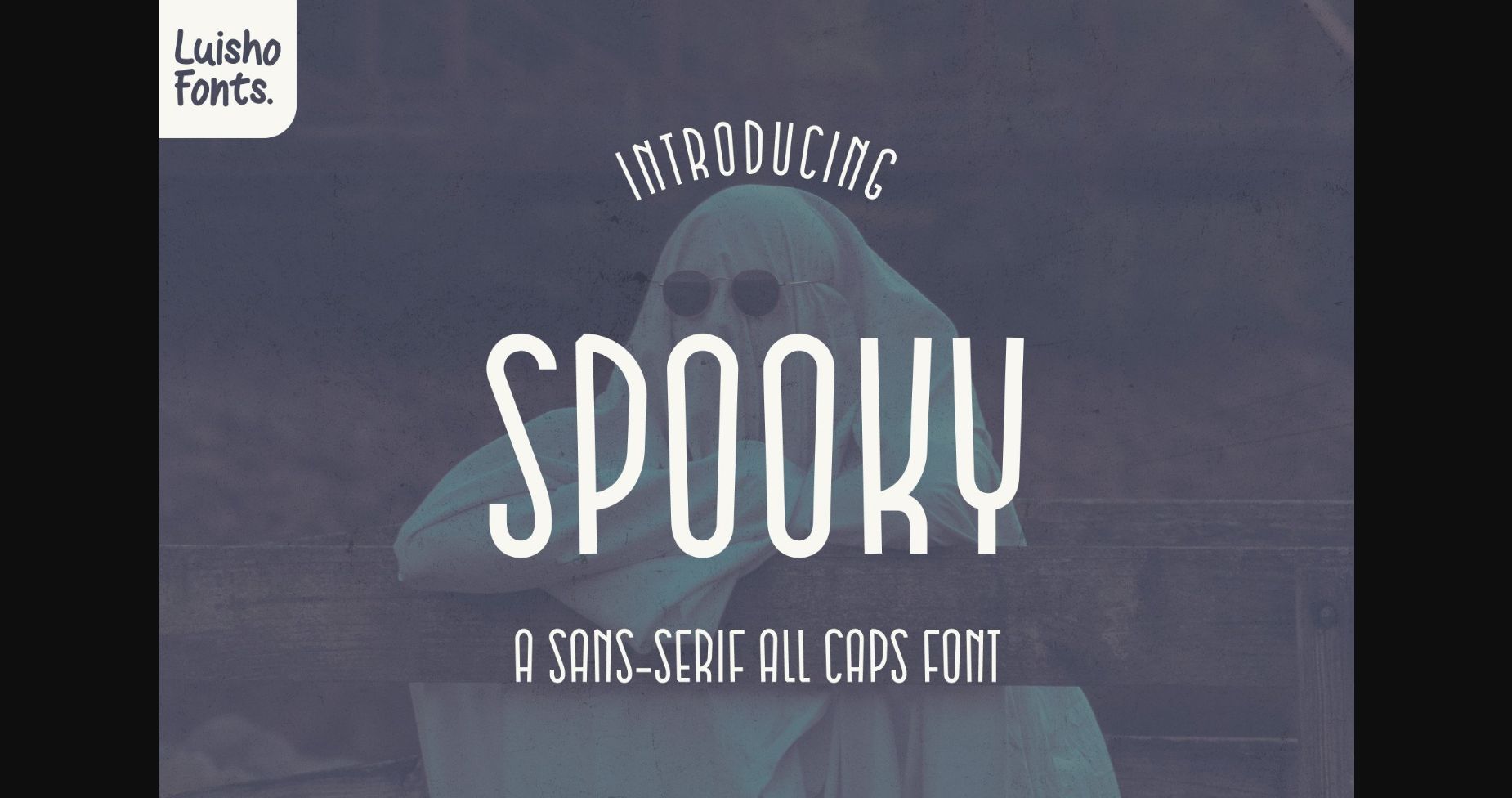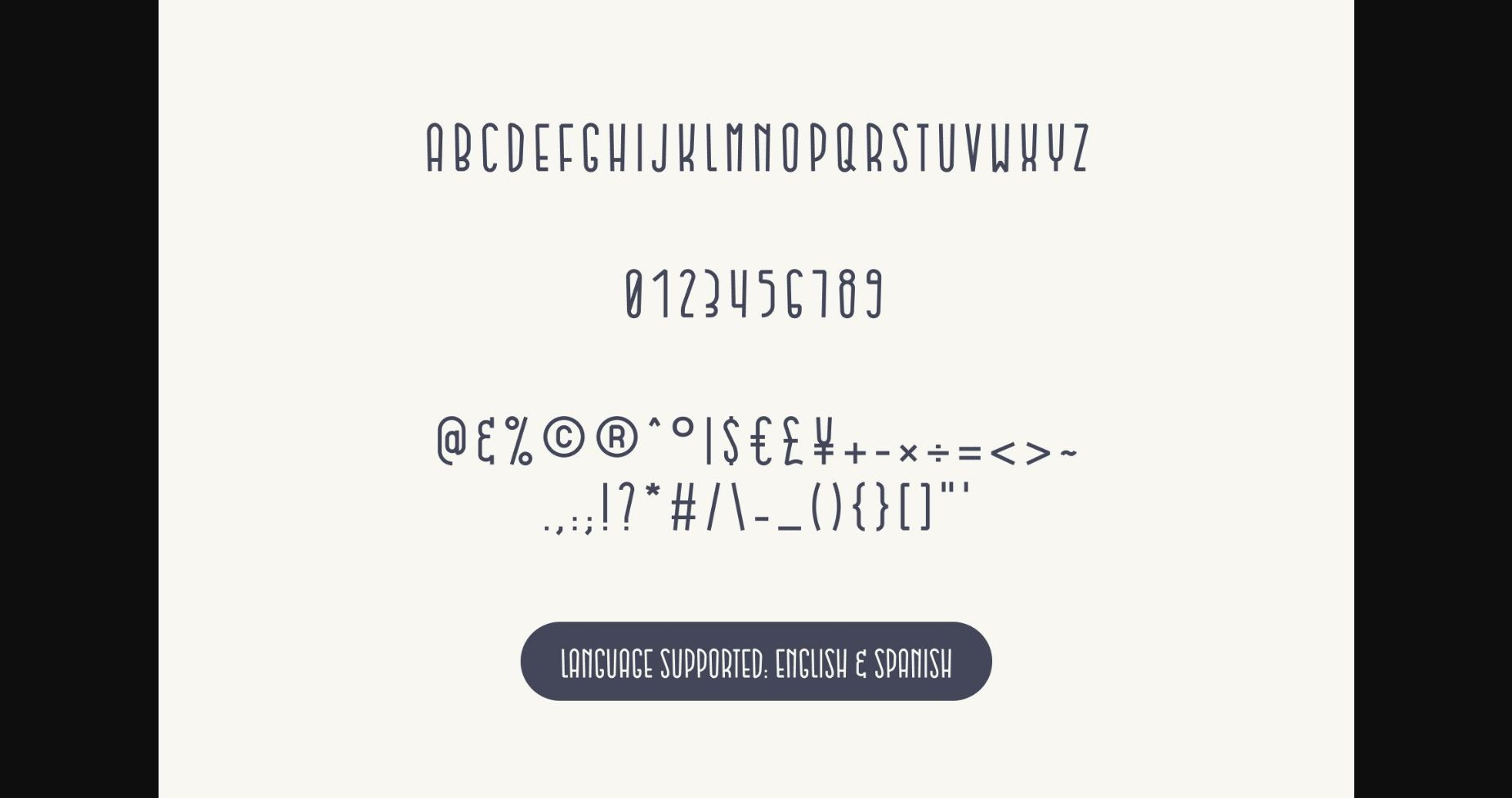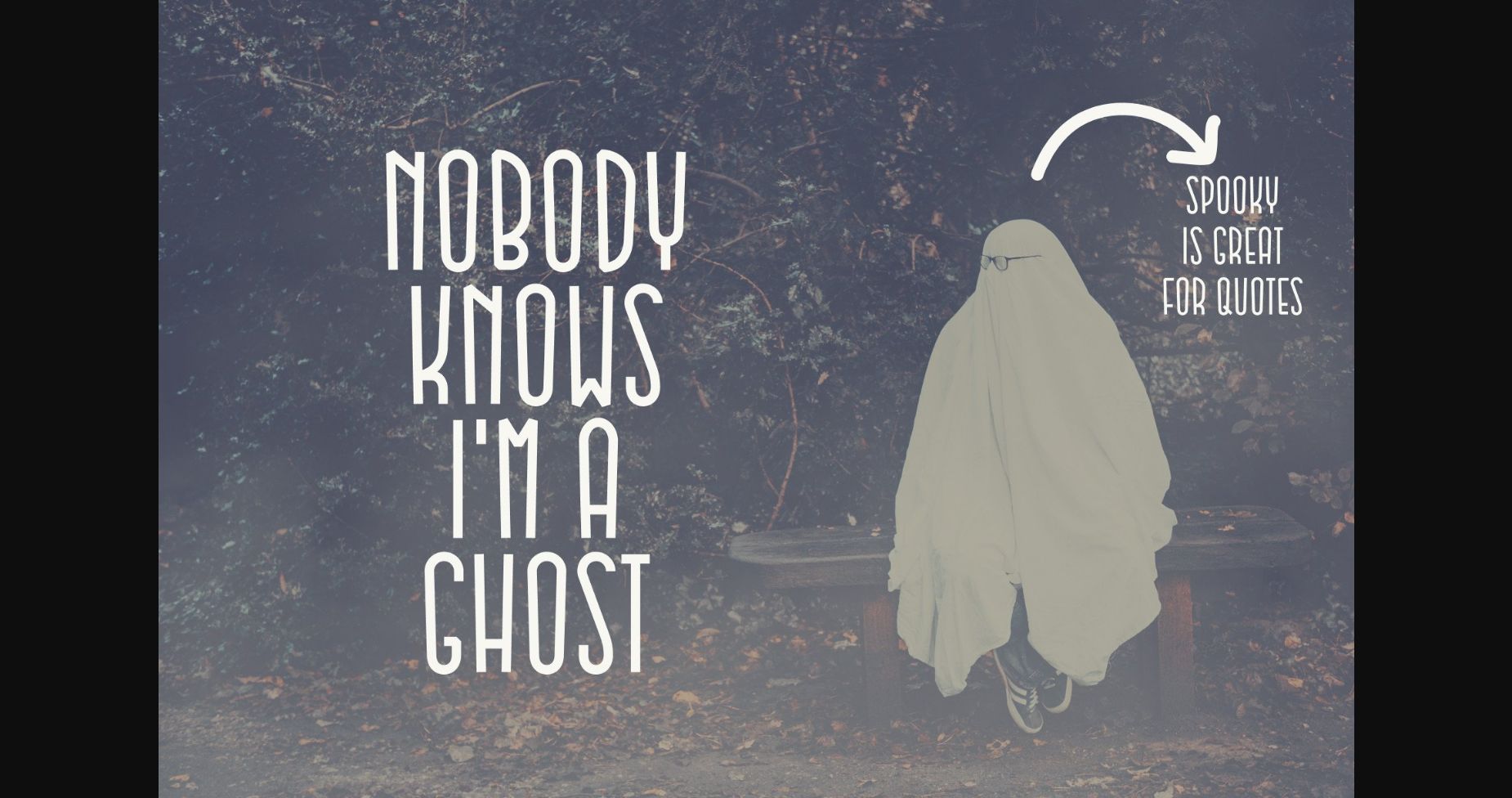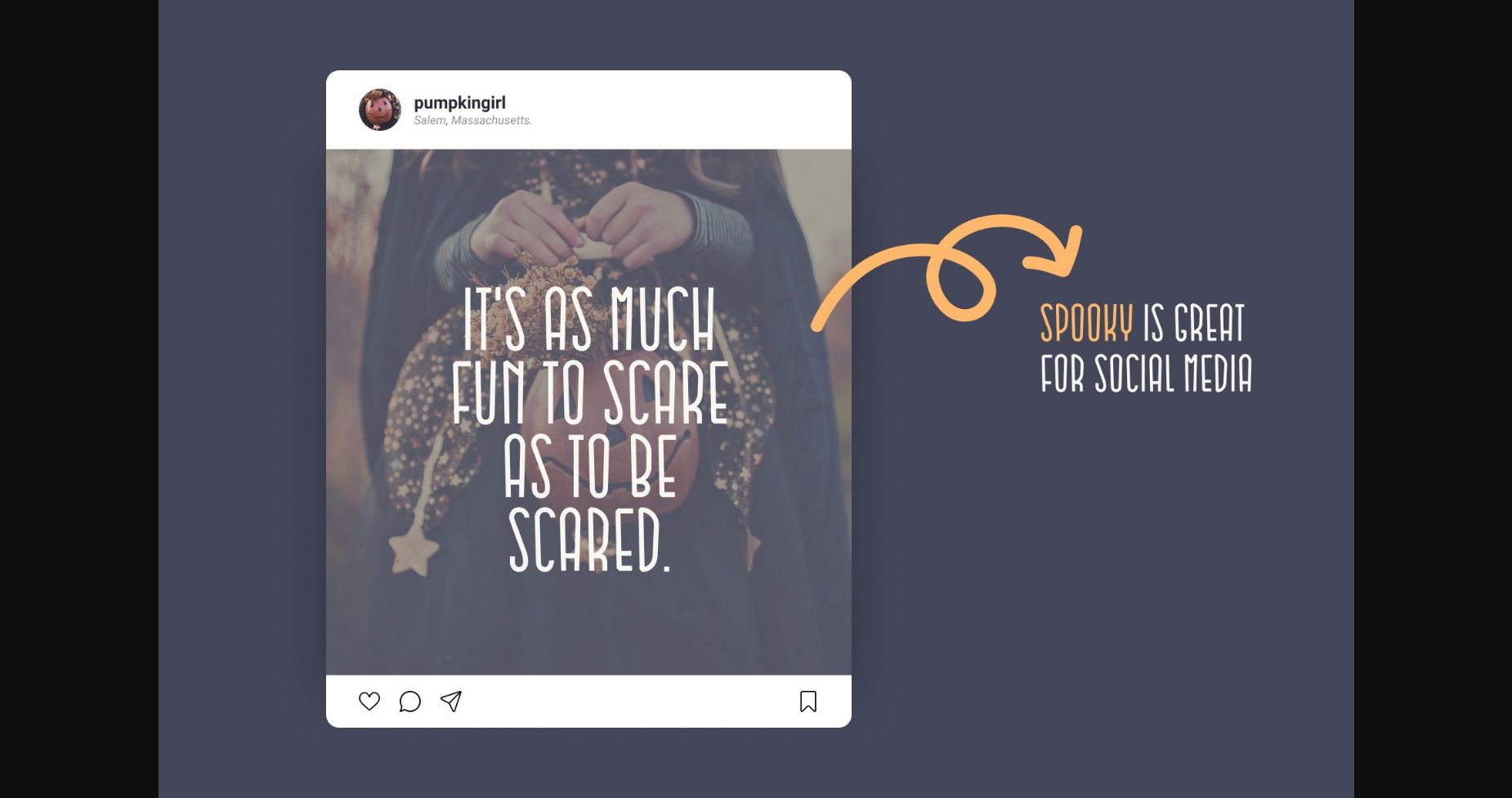
Spooky Font
About Spooky Font
Spooky is an Uppercase Sans-Serif font inspired by a Horror / Terror / Halloween theme. It can be used for notes, quotes, cards, branding, social media, Instagram posts, or anything you want.